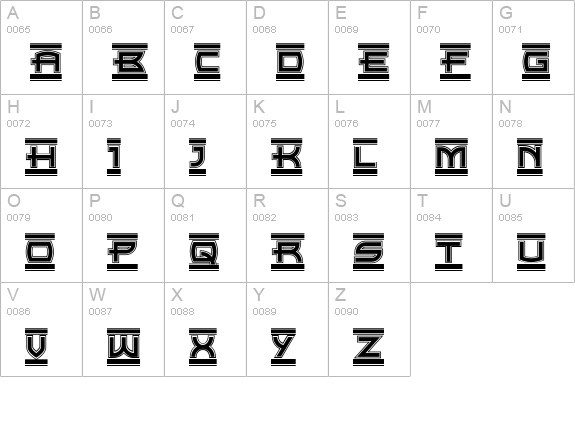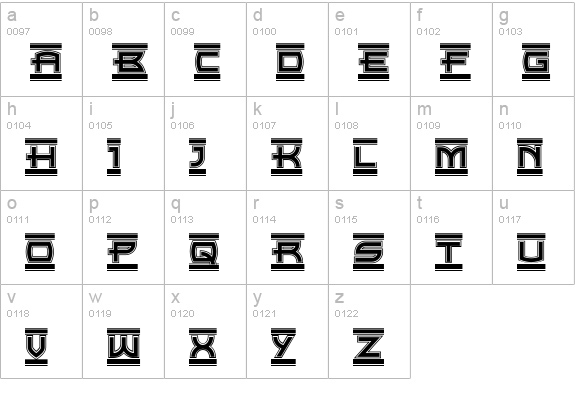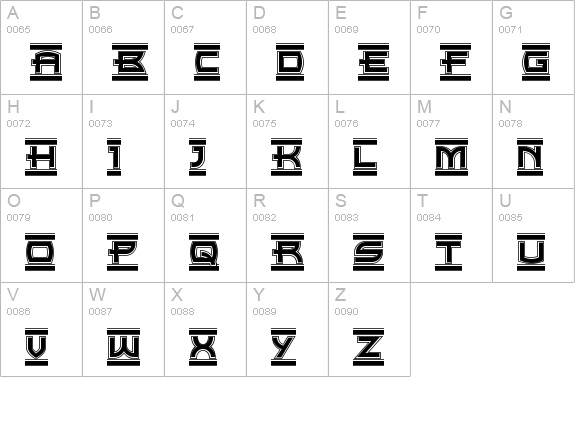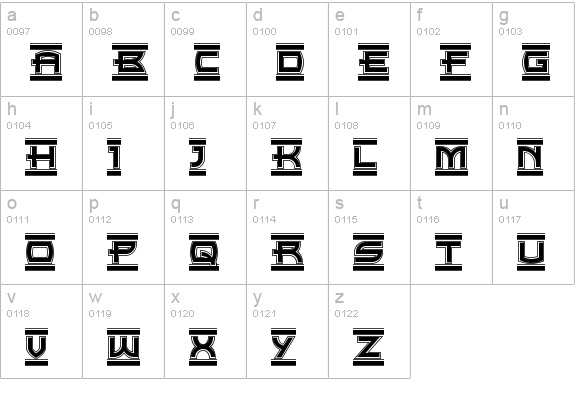
Empire State NF Font Details
Empire State NF font is a captivating and sophisticated typeface that exudes elegance and modernity. With its sleek lines and stylish curves, this font is perfect for adding a touch of class to any design project. The Empire State NF font is versatile and can be used for a variety of purposes, from logos and branding to posters and invitations. What makes Empire State NF font even more appealing is that it is available for free download at FontsMarket.com. This means that you can easily access this beautiful font without any cost, making it a valuable addition to your font collection. Don't miss out on the opportunity to enhance your designs with the stunning Empire State NF font – download it today and start creating with style and sophistication.